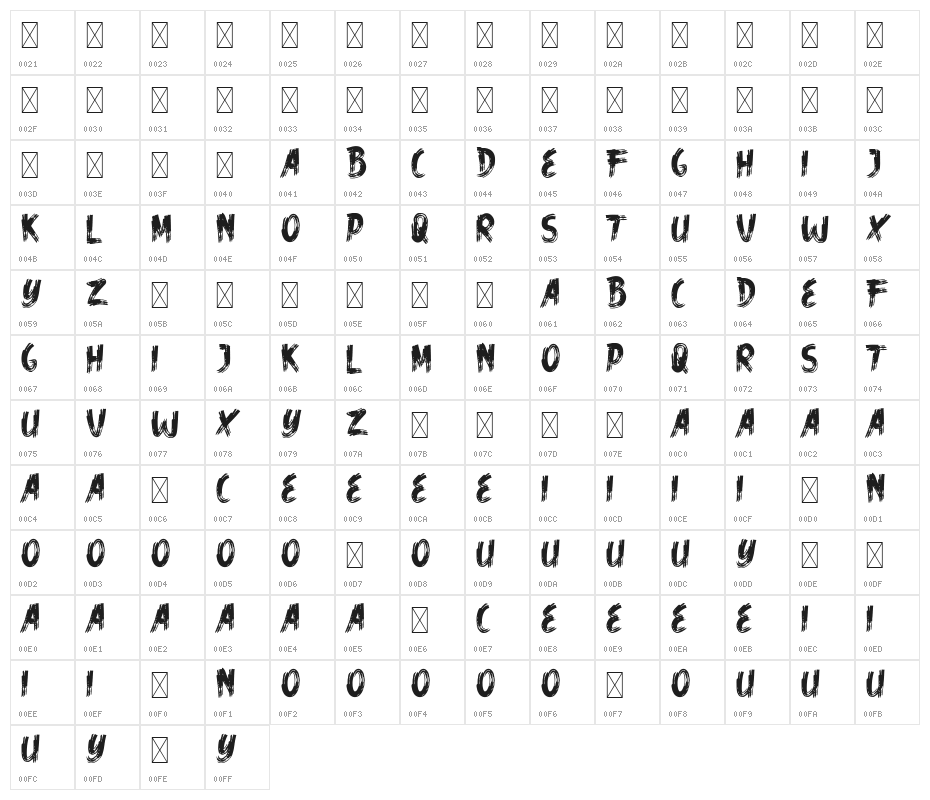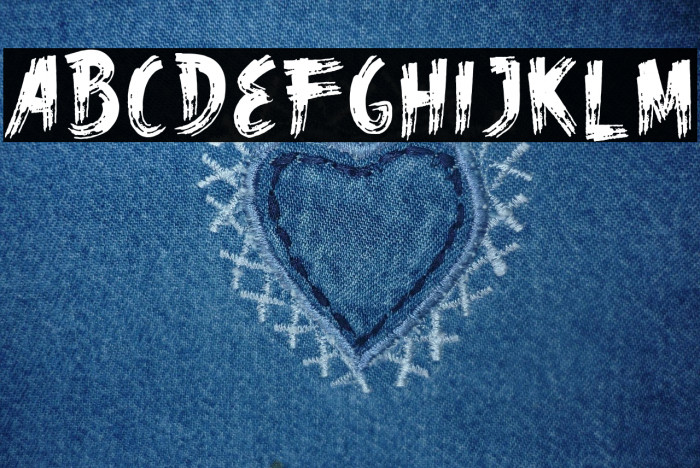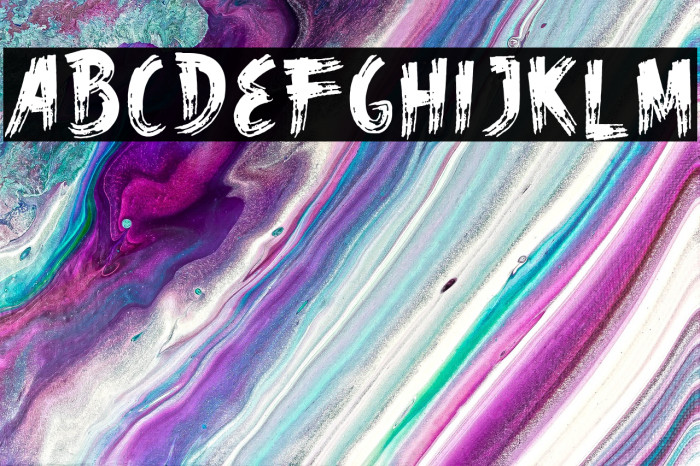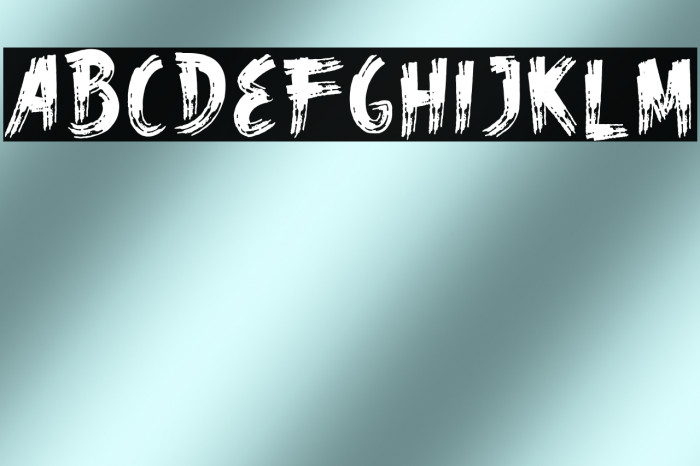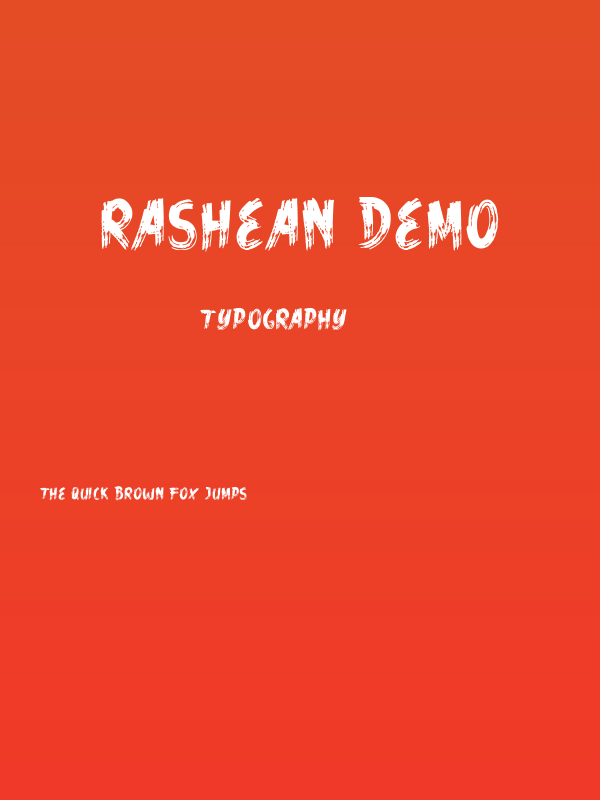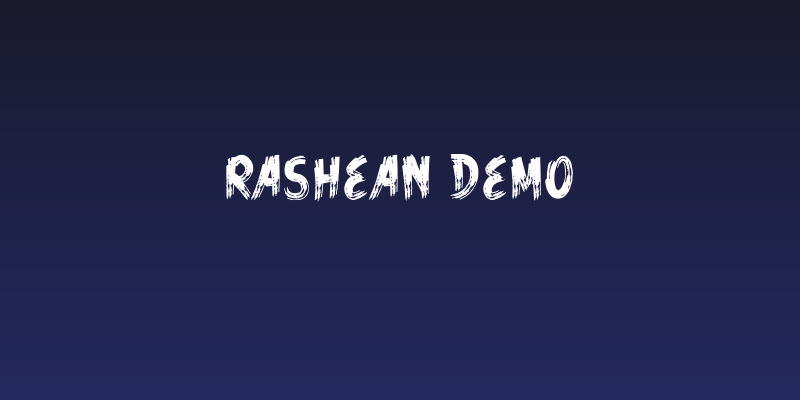
Rashean Demo Font
Rashean Demo Description
This font features a bold, brush-stroke style that gives it a dynamic and energetic appearance. The characters are designed with a rough, textured look, reminiscent of hand-painted lettering. This style creates a sense of movement and spontaneity, making it ideal for projects that require a lively and impactful visual presence. The uppercase and lowercase letters maintain a consistent style, with each character exhibiting unique brush patterns that add to the overall aesthetic. The numbers and special characters are crafted with the same attention to detail, ensuring a cohesive look across all elements.